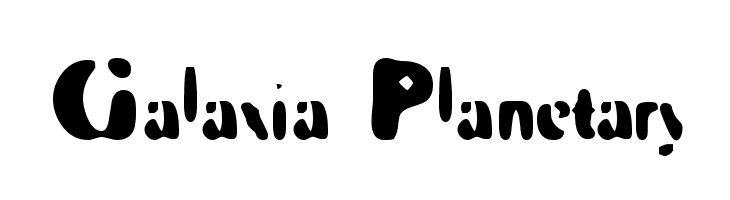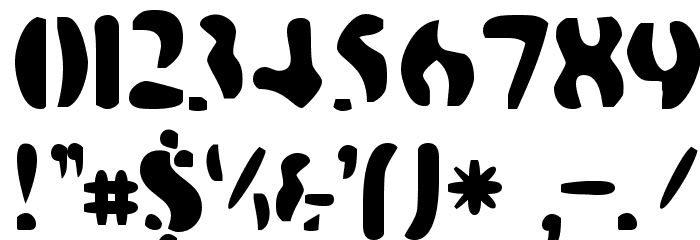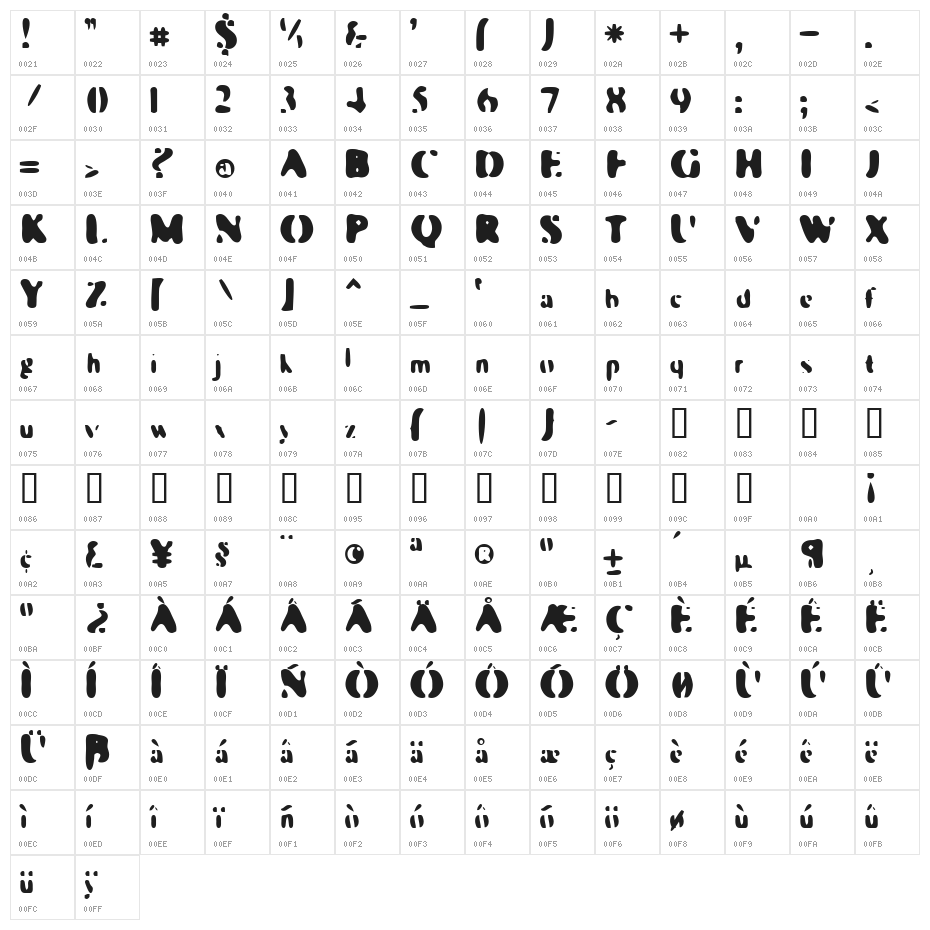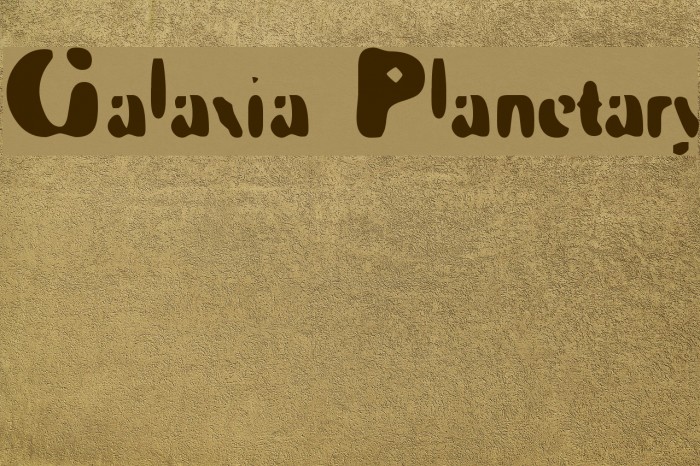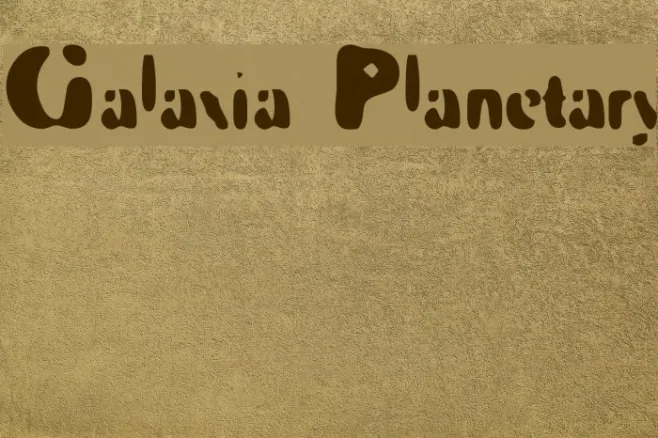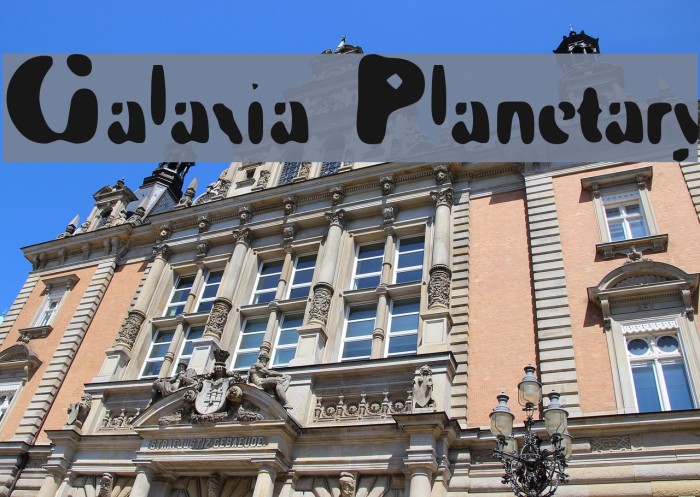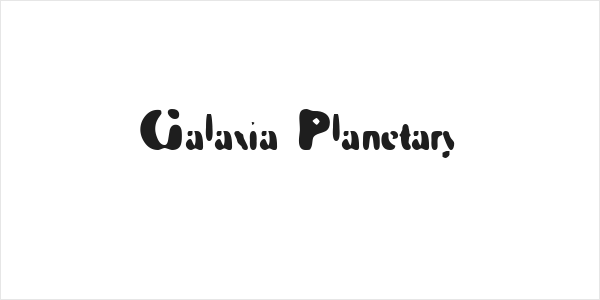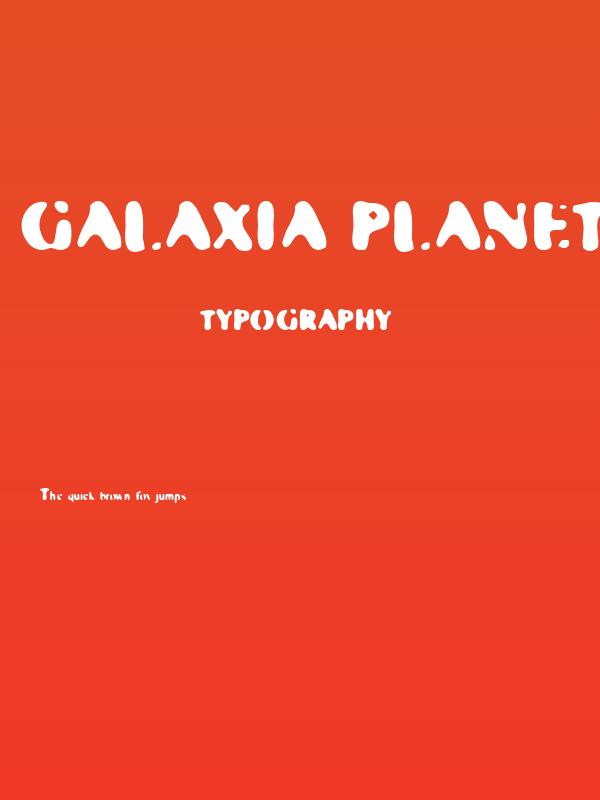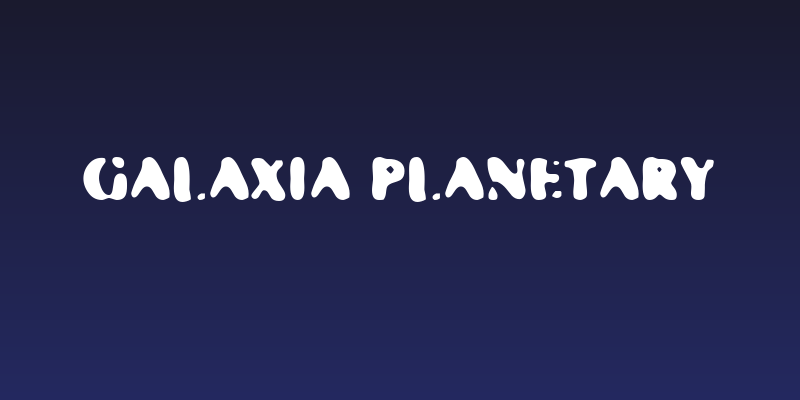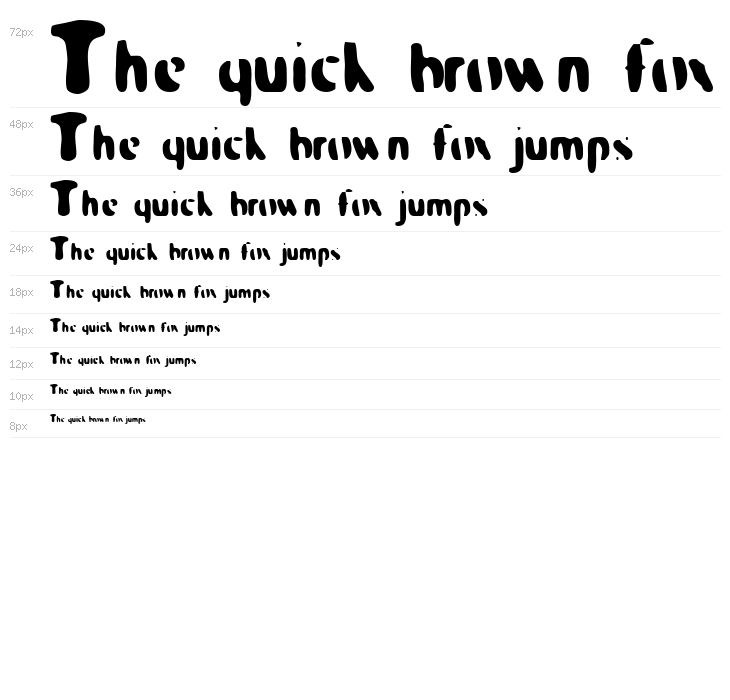
Galaxia Planetary Font
Galaxia Planetary Description
This font features a bold and playful design with a distinctly modern and abstract style. The characters are formed with irregular, blob-like shapes that give it a unique and artistic appearance. The uppercase and lowercase letters maintain a consistent style, with rounded edges and varying thicknesses that create a dynamic visual rhythm. Numbers and special characters follow the same design principles, ensuring a cohesive look across all glyphs. The font's whimsical nature makes it ideal for projects that require a touch of creativity and fun.
| Proposed Projects | Ideal for children's book covers, playful branding, creative posters, and artistic event invitations. |